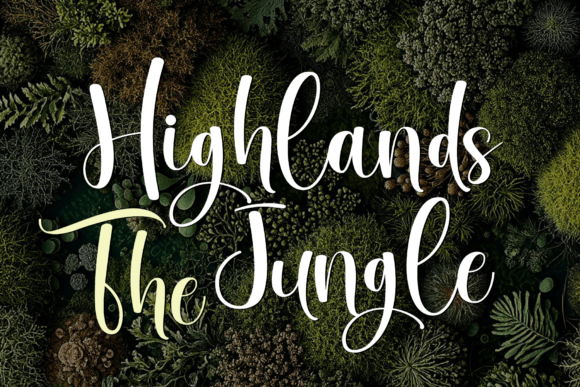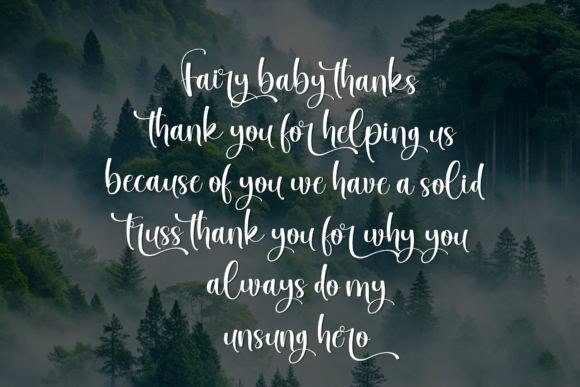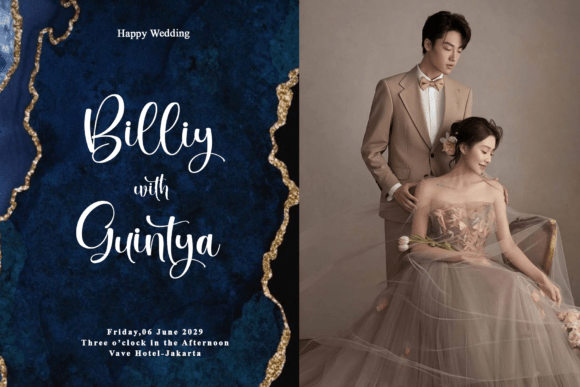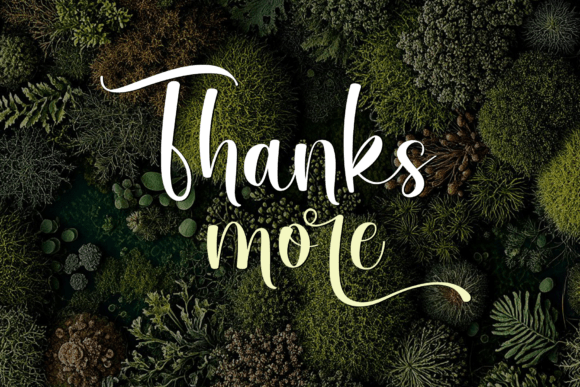
Introducing Antariksa Font: Elevate Your Designs with Elegance and Sophistication
In the world of typography, a font can make or break a design. For designers and crafters looking for a touch of elegance and sophistication, Antariksa Font is an exceptional choice. This beautifully crafted, modern handwritten script font is designed to add a feminine, professional, and slightly romantic flair to any project.
What Makes Antariksa Font Stand Out?
Antariksa Font boasts smooth, fluid strokes and lovely ornamental curves that set it apart from other fonts. Its consistent weight and clean connections ensure excellent legibility, making it perfect for a wide range of applications. Whether you’re creating custom sublimation designs, boutique branding, personalized gifts, or custom stationery, Antariksa Font is the ideal choice.
Key Features of Antariksa Font
- Graceful and Modern Design: Antariksa Font features a stylized handwritten script that exudes elegance and sophistication.
- Feminine and Romantic Touch: The font’s smooth strokes and ornamental curves give it a feminine and slightly romantic feel, perfect for designs that require a touch of warmth and personality.
- Excellent Legibility: The consistent weight and clean connections ensure that Antariksa Font is easy to read, making it suitable for both headings and body text.
- Versatile and Functional: This font is perfect for a wide range of projects, from custom sublimation designs and boutique branding to personalized gifts and custom stationery.
Antariksa Font is a versatile font that can be used in various design projects. Designers and crafters can use it to create:
- Custom Sublimation Designs: Add a touch of elegance to your sublimation designs, such as custom mugs, t-shirts, and phone cases.
- Boutique Branding: Elevate your brand with a sophisticated and feminine font that reflects your boutique’s personality.
- Personalized Gifts: Create beautiful and unique personalized gifts, such as customized jewelry, candles, and home decor items.
- Custom Stationery: Add a touch of elegance to your stationery, including custom notebooks, journals, and greeting cards.
Why Choose Antariksa Font?
With so many fonts available, why choose Antariksa Font? Here are a few reasons:
- Unique and Exclusive: Antariksa Font is a distinctive font that will set your designs apart from others.
- Elegant and Sophisticated: The font’s modern and stylized design makes it perfect for designs that require a touch of elegance and sophistication.
- Easy to Read: Antariksa Font’s excellent legibility ensures that your message is conveyed clearly and effectively.
- Versatile and Functional: This font can be used in a wide range of projects, making it a valuable addition to your font library.
Antariksa Font is a beautiful, modern, and stylized handwritten script font that is perfect for designers and crafters looking for a touch of elegance and sophistication. With its smooth strokes, lovely ornamental curves, and excellent legibility, this font is ideal for a wide range of projects. Whether you’re creating custom sublimation designs, boutique branding, personalized gifts, or custom stationery, Antariksa Font is an exceptional choice. Elevate your designs with the elegance and sophistication of Antariksa Font.